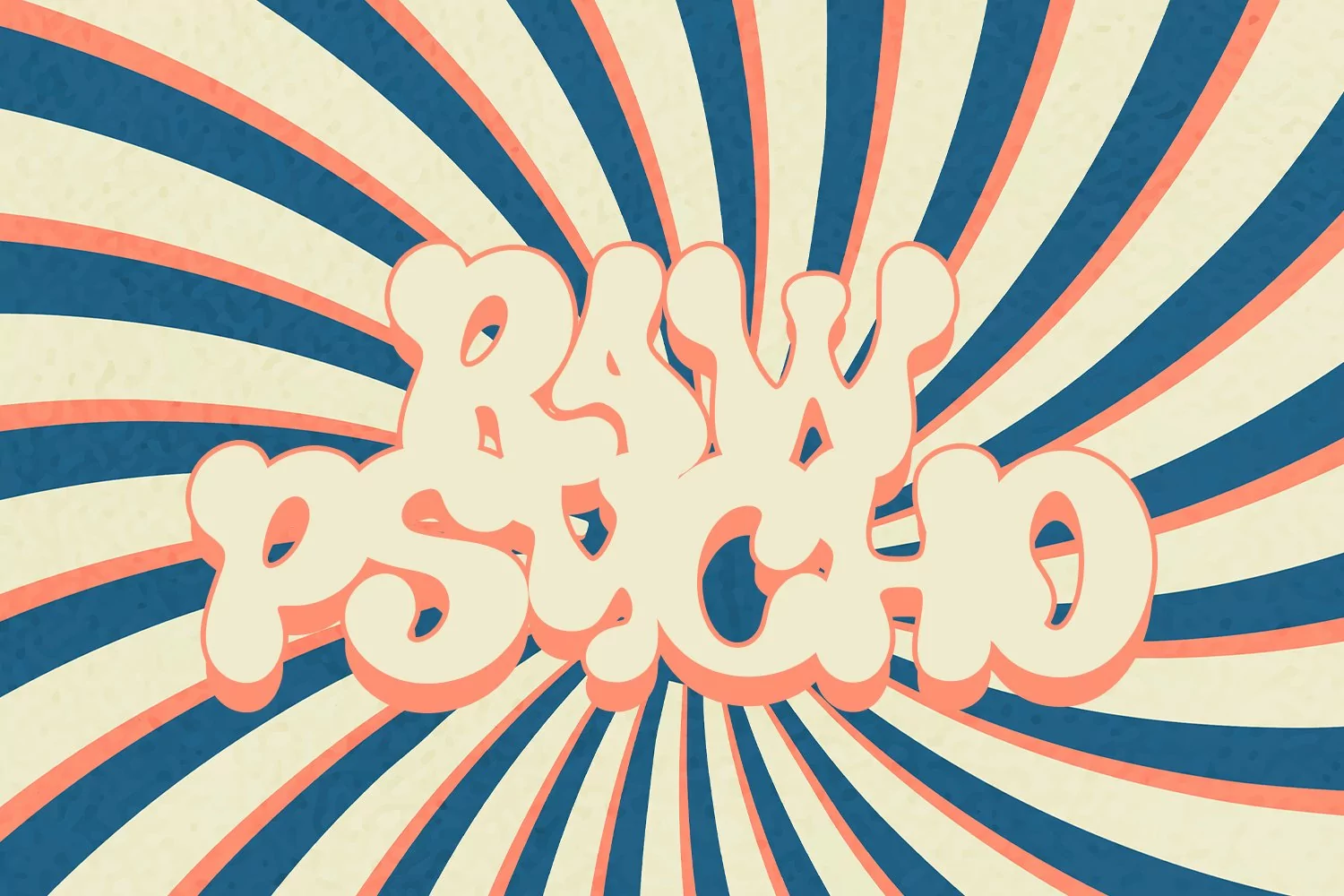
Keithlar is a psychedelic vibes display font. With bold contrast stroke, fun character with a bit of ligatures. To give you an extra creative work. Keithlar font support multilingual more than 100+ language. This font is good for logo design, Social media, Movie Titles, Books Titles, a short text even a long text letter and good for your secondary text font with sans or serif. Make a stunning work with Keithlar font.
Keithlar